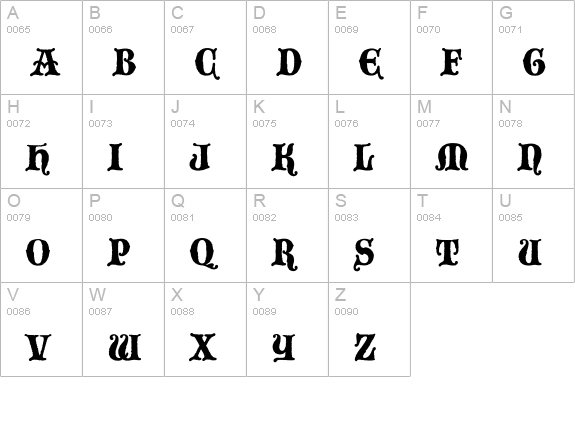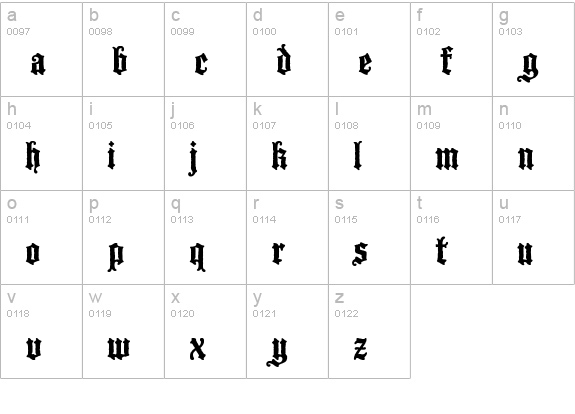
BlackmoorPlain Font Details
BlackmoorPlain font is a classic and elegant typeface that exudes sophistication and charm. With its clean lines and timeless appeal, this font is perfect for a wide range of design projects, from invitations to branding to packaging. The simplicity of BlackmoorPlain font allows it to be versatile and suitable for both modern and traditional designs. The best part is, BlackmoorPlain font is available for free download at FontsMarket.com! You can easily add this stylish font to your collection and use it in your projects without any cost. Whether you're a designer looking for a new font to elevate your work or someone who appreciates the beauty of well-crafted typography, BlackmoorPlain font is a fantastic choice that won't break the bank. Download it today and enhance your designs with this timeless and elegant typeface.